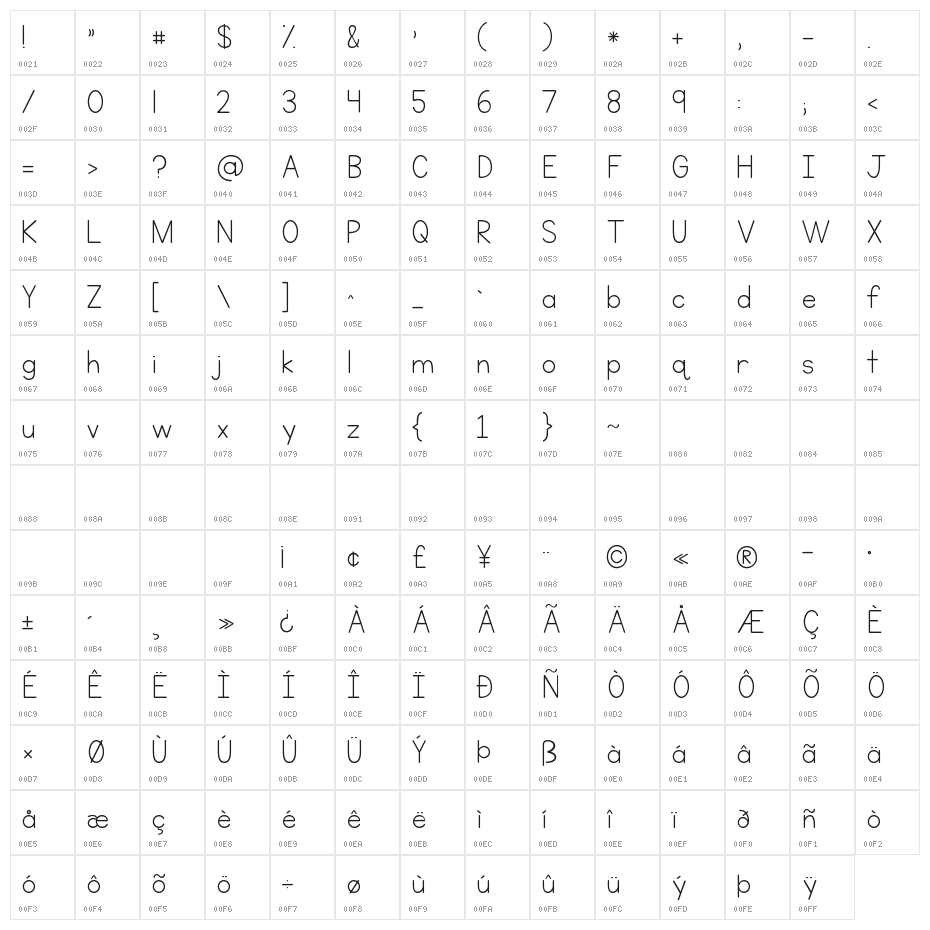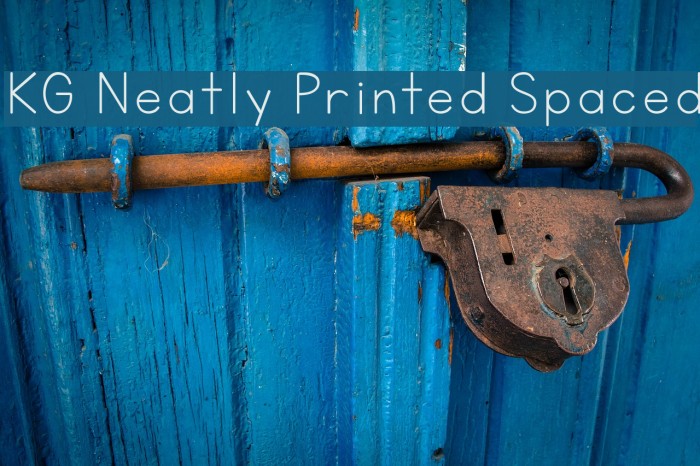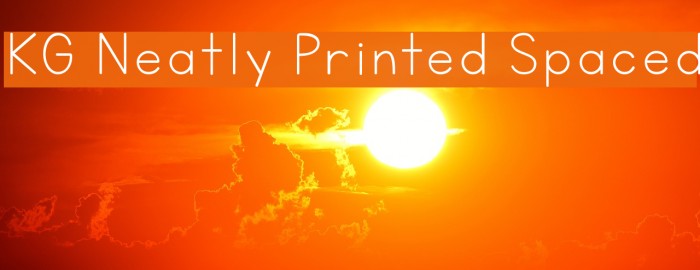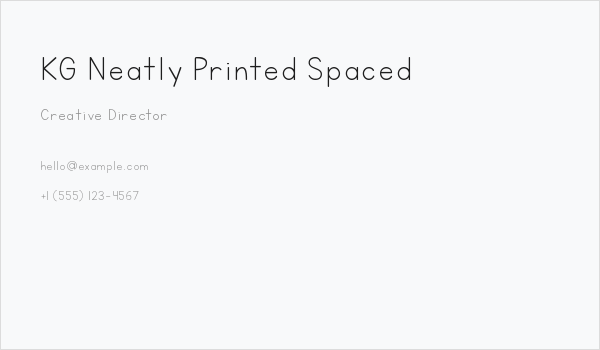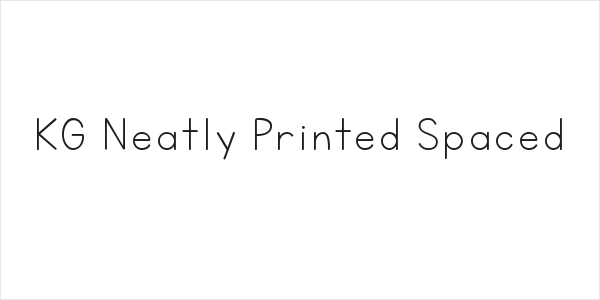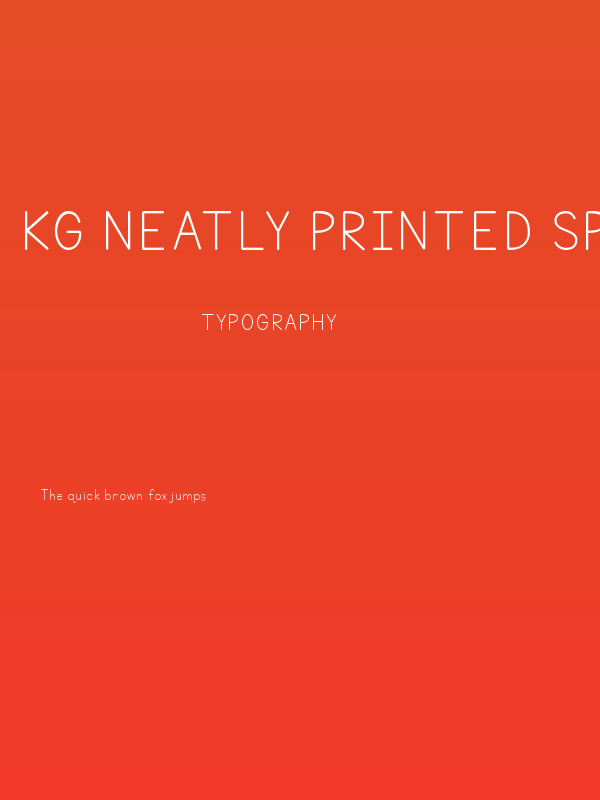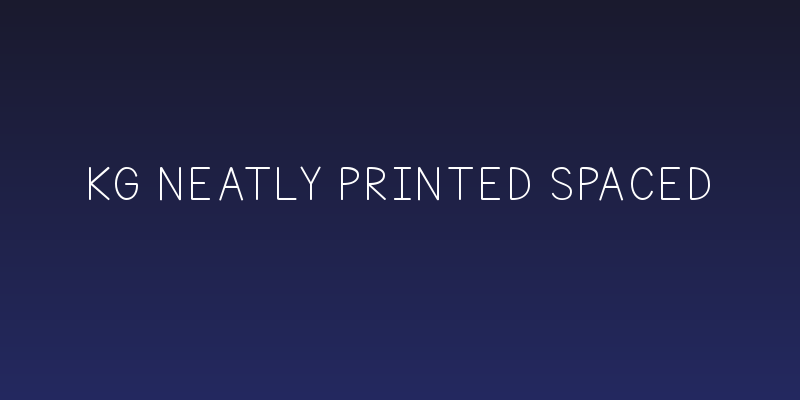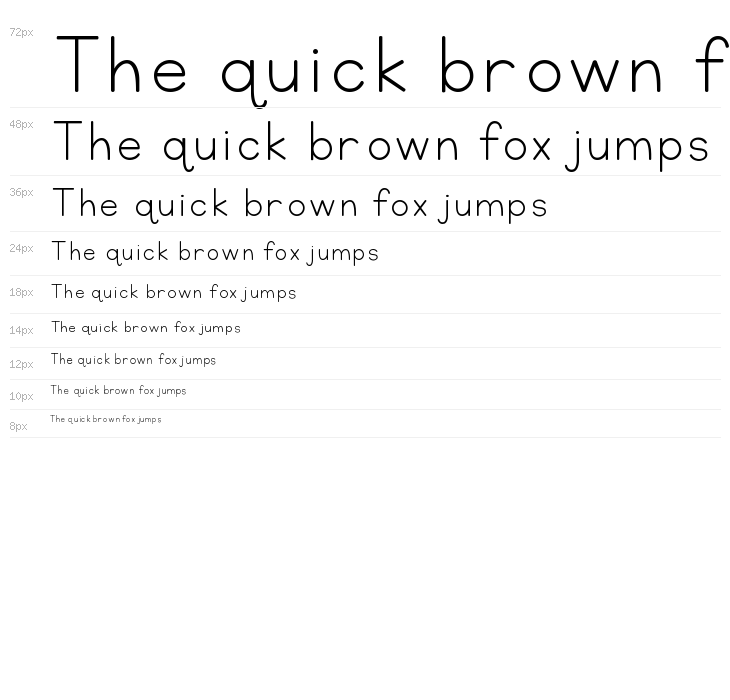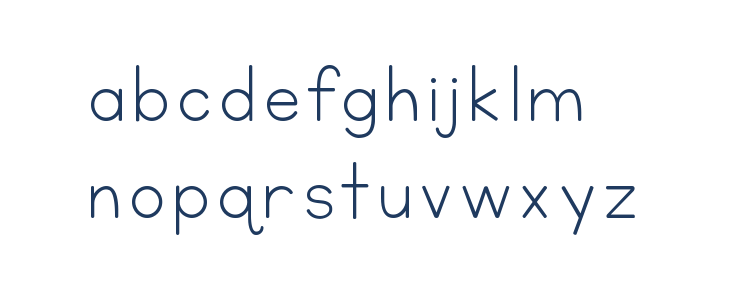
KG Neatly Printed Spaced Font
KG Neatly Printed Spaced Description
This font features a clean and modern sans-serif style with a uniform stroke width, giving it a neat and orderly appearance. The characters are well-spaced, contributing to its readability and clarity. The uppercase and lowercase letters maintain a consistent height, while the numerals are easily distinguishable. The special characters are designed to blend seamlessly with the alphabet, ensuring a cohesive look across different text elements. Its simplicity and elegance make it suitable for a variety of design applications.
| Proposed Projects | Ideal for use in educational materials, children's books, minimalist designs, and digital interfaces. |